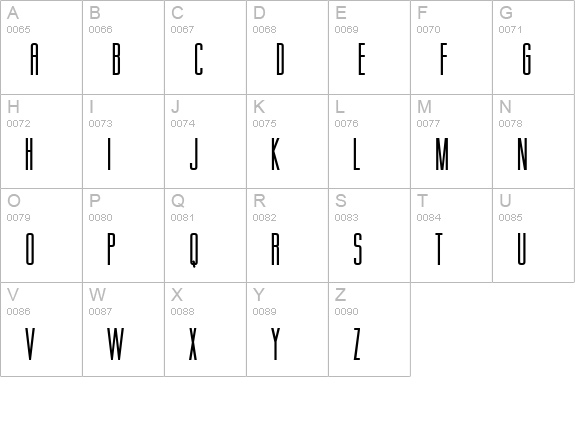
Gorgio Bold Font Details
Gorgio Bold is a strong, high-contrast variant in the Gorgio typeface family \xE2\x80\x94 well suited to headlines, attention-grabbing titles, and strong calls-to-action.
Gorgio Bold is a striking and modern typeface that exudes confidence and sophistication. With its bold and dynamic letterforms, Gorgio Bold is perfect for making a statement in headlines, logos, and branding projects. The strong, geometric shapes of this font make it stand out and grab attention, while still maintaining a sense of elegance and professionalism. What sets Gorgio Bold apart is not just its bold design, but also the fact that it is available for free download at FontsMarket.com. This means that you can easily access this stylish font and use it in your projects without any cost. Whether you're a designer looking to add a touch of boldness to your work or a business owner wanting to create a memorable brand identity, Gorgio Bold is the perfect choice. Download it today and see how it can elevate your designs to the next level.